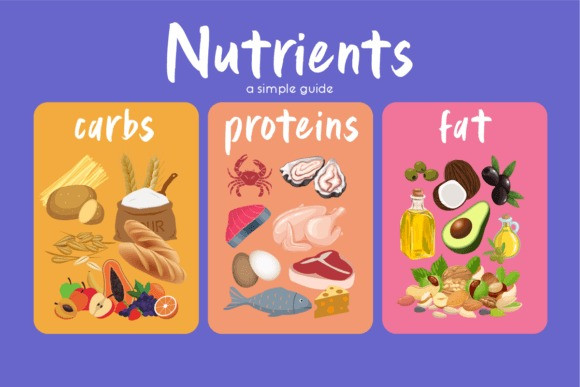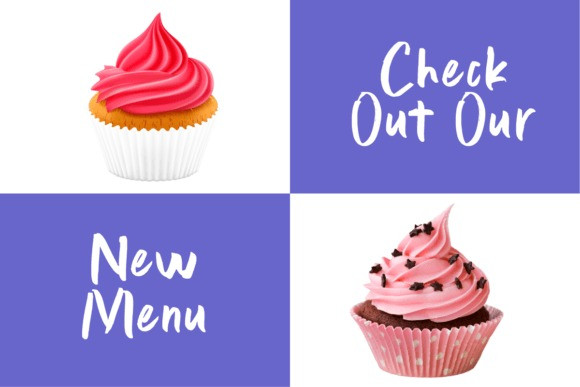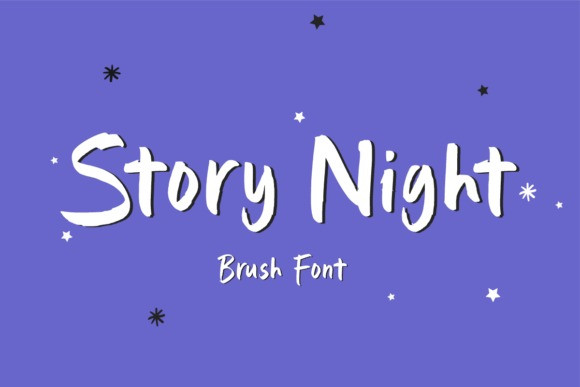
Story Night Font
Story Night Brush Font is a bold and beautiful brush font that adds a touch of uniqueness to any design. With its natural brush strokes and dynamic letterforms, this font brings a hand-painted feel to your text. Perfect for creating eye-catching headlines, logos, and posters, this font is a great choice for anyone looking to add a creative and edgy touch to their design work.